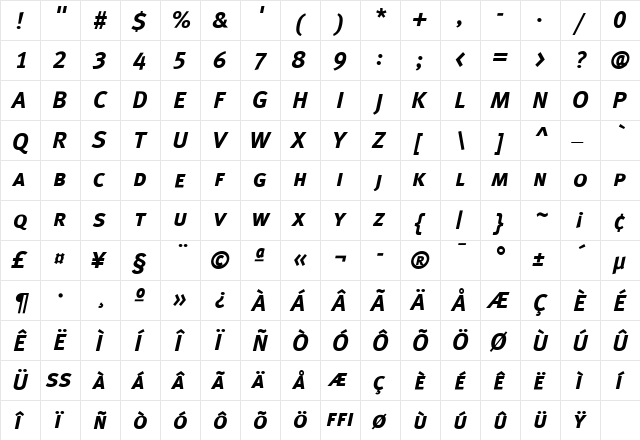
MetaPlus Bold Italic
Design Context for MetaPlus Typeface
MetaPlus is a composed and adaptable typeface that performs quietly and consistently across a wide range of design contexts. The dynamic lean of this cut emphasises speed and emphasis in any layout. Its bold stroke weight gives it real presence on the page.
Pro Tip: Use MetaPlus for emphasis, pull quotes, and subheadings where its slanted energy can add rhythm to the layout.